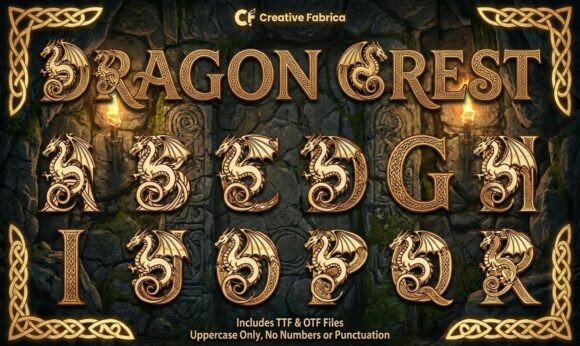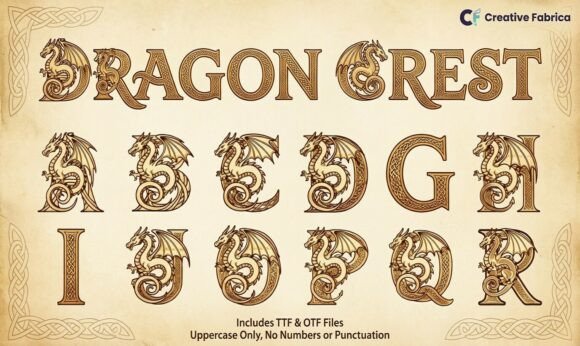
Unleash the Magic with Dragon Crest Font: A Majestic Monogram for Fantasy Lovers
Are you a fantasy enthusiast, designer, or crafter looking for a unique and breathtaking font to elevate your creative projects? Look no further than the Dragon Crest Font, a highly detailed decorative font that features majestic dragons elegantly intertwining to form classic serif letters. This stunning font is a must-have for anyone who loves fantasy, mythology, and medieval designs.
What is Dragon Crest Font?
Dragon Crest Font is a decorative font that boasts gorgeous line-art illustrations of dragons, carefully crafted to create a sense of mythical power and elegance. The font features intricate designs, with dragons curled around serif letters, creating a beautiful and striking visual effect. The level of detail in this font is exceptional, making it perfect for a wide range of creative projects, from initial monograms to custom book covers.
The Dragon Crest Font offers a range of features and benefits that make it an ideal choice for designers, crafters, and fantasy enthusiasts. Some of the key features include:
- Highly detailed designs: The font features intricate line-art illustrations of dragons, carefully crafted to create a sense of mythical power and elegance.
- Classic serif letters: The font uses classic serif letters, making it easy to read and use in a variety of creative projects.
- Versatile: The Dragon Crest Font is perfect for a wide range of creative projects, including initial monograms, coloring book pages, fantasy-themed apparel, tabletop RPG campaigns, medieval designs, laser engraving, and custom book covers.
- Easily customizable: The font is easily customizable, allowing you to adjust the size, color, and style to suit your creative project.
Use Cases for Dragon Crest Font
The Dragon Crest Font is a versatile font that can be used in a variety of creative projects. Here are some use cases to get you started:
- Initial Monograms: Create striking initial monograms for your clients or personal projects, adding a touch of mythical power and elegance.
- Coloring Book Pages: Use the Dragon Crest Font to create stunning coloring book pages for adults and children, featuring intricate designs and mythical creatures.
- Fantasy-Themed Apparel: Design fantasy-themed apparel, such as t-shirts, hoodies, and stickers, using the Dragon Crest Font to add a touch of magic and mythology.
- Tabletop RPG Campaigns: Create custom materials for your tabletop RPG campaigns, including character sheets, maps, and illustrations, using the Dragon Crest Font.
- Medieval Designs: Use the Dragon Crest Font to create medieval-inspired designs, such as certificates, posters, and brochures, featuring intricate illustrations and classic serif letters.
- Laser Engraving: Use the Dragon Crest Font for laser engraving projects, such as custom signs, plaques, and awards, adding a touch of mythical power and elegance.
- Custom Book Covers: Design custom book covers for fantasy novels, using the Dragon Crest Font to create a striking and eye-catching design.
Why Choose Dragon Crest Font?
So, why choose the Dragon Crest Font for your creative projects? Here are a few reasons:
- Unique and eye-catching designs: The Dragon Crest Font features unique and eye-catching designs that will set your creative projects apart from the rest.
- High-quality illustrations: The font features high-quality illustrations of dragons, carefully crafted to create a sense of mythical power and elegance.
- Easy to use: The font is easy to use and customize, making it perfect for designers, crafters, and fantasy enthusiasts of all skill levels.
- Versatile: The Dragon Crest Font is versatile and can be used in a wide range of creative projects, from initial monograms to custom book covers.
In conclusion, the Dragon Crest Font is a must-have for anyone who loves fantasy, mythology, and medieval designs. With its highly detailed designs, classic serif letters, and versatility, this font is perfect for a wide range of creative projects. So, unleash the magic with Dragon Crest Monogram and add a touch of mythical power to your next creative project!